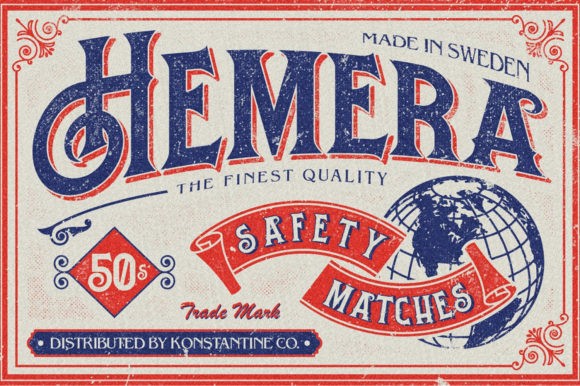
Adorn your designs with the enchanting Hemera font, an exquisite serif creation from konstantinestudio that's perfect for Christmas signs and a host of other creative endeavors. With its playful and whimsical nature, Hemera brings a festive charm to cards, branding, labels, and beyond.
Unleash your creativity and let the flowing curves and elegant strokes of Hemera work their magic. Transform everyday projects into striking works of art as this captivating font adds a touch of magic to any design. Its unique character will elevate your Christmas signs, making them stand out from the crowd.
Hemera is more than just a font; it's an invitation to embark on a creative journey. Whether you're a seasoned designer or just starting out, Hemera's versatility and user-friendly nature make it the perfect companion. Let your imagination soar as you explore the infinite possibilities that await.
Picture this: A Christmas sign adorned with Hemera's graceful letters, its festive spirit radiating joy and warmth. The intricate details and playful glyphs draw the eye, creating a captivating display that spreads holiday cheer wherever it's seen.
But Hemera's allure extends far beyond Christmas signs. Its versatility shines through in branding projects, where its sophisticated charm adds a touch of elegance and professionalism. Labels and tags take on a life of their own as Hemera's whimsical curves dance across their surfaces, transforming ordinary items into works of art.
As you work with Hemera, you'll discover a font that not only fulfills your creative vision but also sparks new ideas. It's a font that inspires, surprises, and keeps your projects fresh and exciting.
So why settle for ordinary fonts when you can have the extraordinary? Embrace Hemera today and unlock a world of creative possibilities. Let its captivating nature elevate your designs and make your projects truly unforgettable. Join the growing community of Hemera enthusiasts who have discovered the magic that lies within this remarkable font.